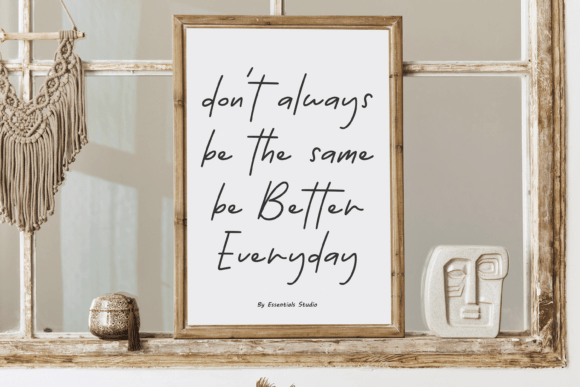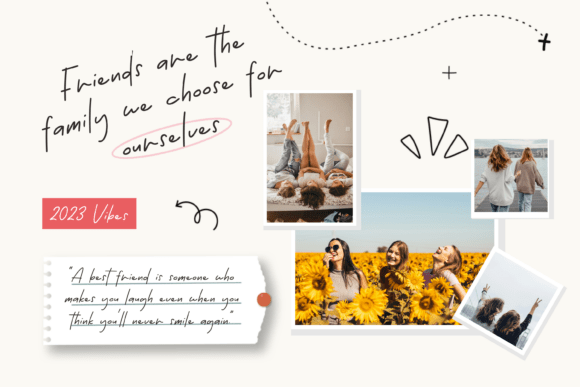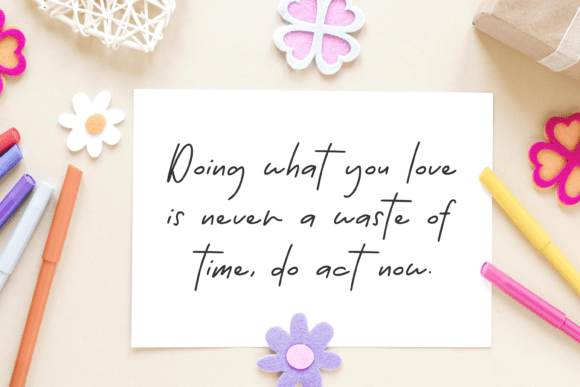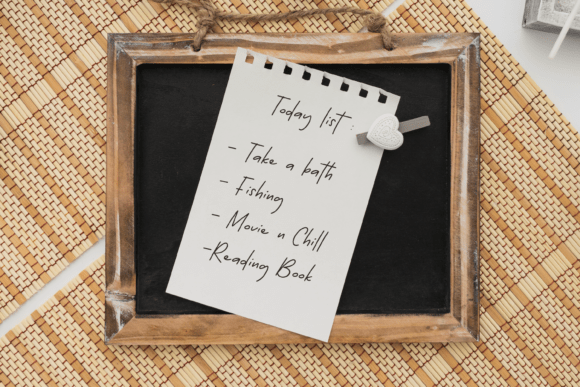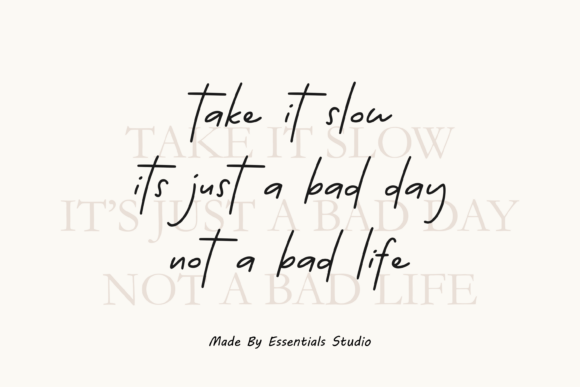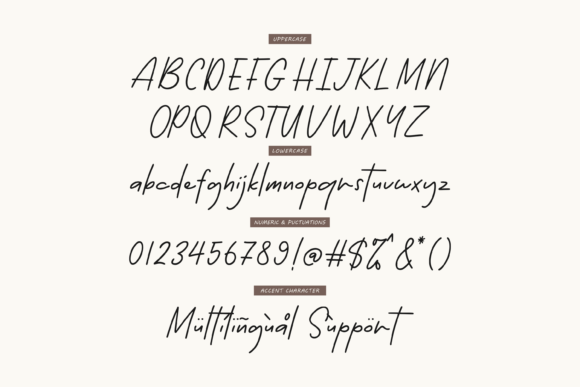
Bring Your Vision to Life with Essentials Handwriting Font
Have you ever found yourself rummaging through your old journals, reminiscing about the handwritten notes and doodles that once brought your creativity to life? For many designers, this moment of nostalgia sparks a desire to infuse their digital projects with the same personal touch.
Enter Essentials Handwriting Font, a beautifully crafted typeface designed to add a touch of elegance and whimsy to your design projects. This versatile font is perfect for a wide range of creative needs, from quote designs to birthday layouts, crafting, invitations, and more. With Essentials Handwriting Font, you’ll be able to bring your unique vision to life, making it an invaluable asset for designers looking to elevate their work.
Essentials Handwriting Font Key Features
- Unique Characteristics: This font features a distinctive, elegant, and modern handwriting style with subtle variations in letterforms, making it ideal for creative and personal projects.
- Script and Connection: Essentials Handwriting Font includes connected and disconnected script styles, allowing for versatility in text composition and layout.
Designer Review: Essentials Handwriting Font
Overall, I think Essentials Handwriting Font is a solid choice for designers looking for a classic, elegant handwriting font. ✨ The font’s smooth, connected strokes and natural flair make it perfect for headings, titles, and short paragraphs where you want to add a touch of personality to your text.
The font is highly legible, even at smaller sizes, and the letterforms are well-proportioned and balanced. ✨ I also appreciate the fact that the font comes in a range of weights, from Light to ExtraBold, which gives you a lot of flexibility when it comes to styling your text.
- ⚠️ The font may not be suitable for large blocks of text, as it can start to feel a bit monotonous and overwhelming.
- ⚠️ Some users may find the font’s connected strokes a bit tricky to read at very small sizes.
- ⚠️ The font’s style may not be to everyone’s taste – some designers may prefer a more modern or stylized look.
Overall, I think Essentials Handwriting Font is a great choice for designers who want a classic, elegant look without breaking the bank. While it may have some limitations, it’s a solid, versatile font that can add a touch of personality to your designs.
For optimal results, use the Essentials Handwriting Font for:
- Personalized gifts and cards.
- Artistic and creative projects.
Alternatives to Essentials Handwriting Font for Designers
Carolyna Pro is a modern, elegant handwriting font designed for luxury and high-end brands. It features a flowing, cursive style with subtle flair at the ends of letters. Suitable for use in branding, packaging, and advertising materials.
Compared to Essentials Handwriting Font, Carolyna Pro has a more refined and sophisticated look, making it ideal for premium brands. It also features a wider range of weights and styles, offering more flexibility for designers.
Great Vibes is a lively, energetic handwriting font designed to evoke a sense of fun and playfulness. It features a bold, expressive style with a mix of uppercase and lowercase letters. Suitable for use in youth-oriented brands, advertising, and social media materials.
Compared to Essentials Handwriting Font, Great Vibes has a more casual and approachable feel, making it perfect for brands that want to convey a sense of excitement and energy. It also features a more limited range of weights and styles, but its unique character makes up for it.
What is the recommended font size for optimal readability with the Essentials Handwriting Font?
The recommended font size for optimal readability with the Essentials Handwriting Font is between 12 and 18 points. However, this may vary depending on the specific application, screen resolution, and personal preference. Experiment with different font sizes to find the most comfortable and readable setting for your needs.